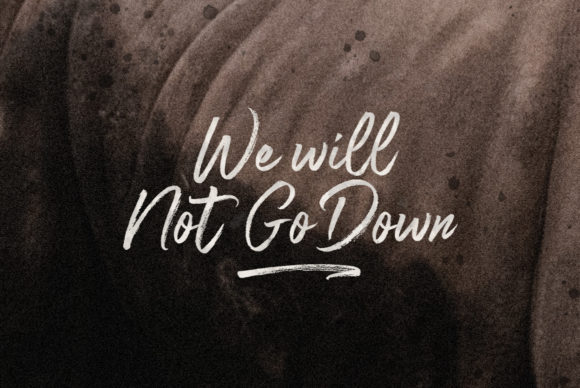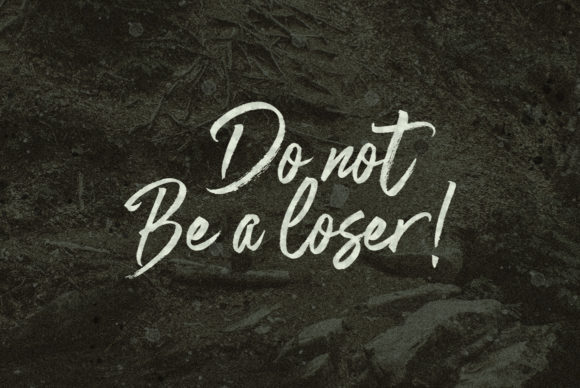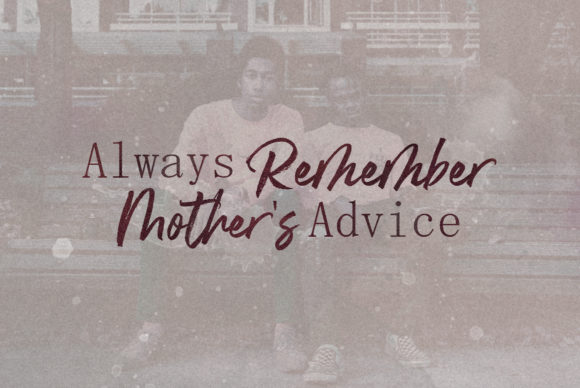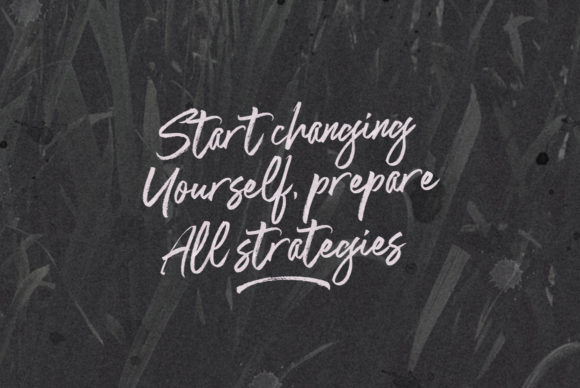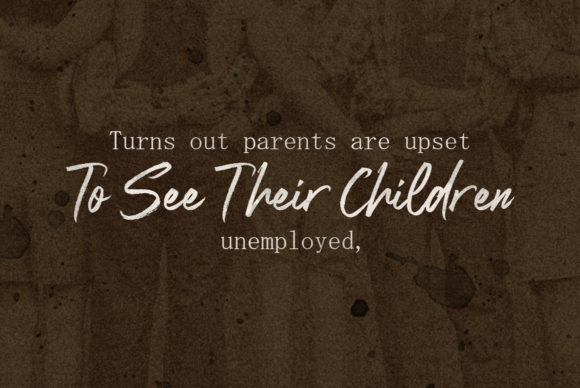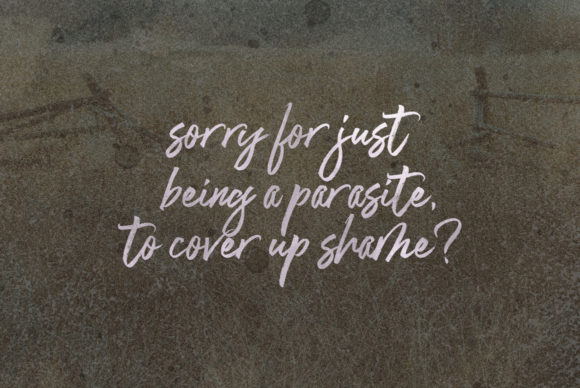
The Perfect Scratch: Unlocking the Power of the Bellastory Font
You know that moment when you’re working on a design and everything just falls into place? The colors, the layout, the typography – it’s like magic. For designers, that feeling is what makes all the late nights and early mornings worth it. And for us, it often starts with the right font. That’s where the Bellastory Font comes in – a striking brush font that captures the essence of hand-drawn elegance.
The Bellastory Font was intentionally crafted with a rough brush, giving it a unique, imperfect character that’s perfect for adding a touch of personality to your designs. With its amazing swashes, you can take your typography to the next level and make a lasting impression on your audience. Whether you’re a seasoned pro or just starting out, the Bellastory Font is a valuable addition to any designer’s toolkit.
- Unique Characteristics: Bellastory Font features a unique blend of modern and classic elements, with a touch of elegance and sophistication.
Bellastory Font Review
Overall, I found Bellastory to be a stylish and elegant font that’s perfect for projects where you want to convey a sense of sophistication and luxury. ✨ Its unique blend of modern and traditional elements makes it a great choice for a wide range of applications, from branding to editorial design.
- ✨ Elegant and sophisticated look: Bellastory is perfect for projects that require a touch of luxury and refinement.
- ✨ Versatile: It can be used for a wide range of applications, from branding to editorial design.
- ✨ Well-suited for long blocks of text: The font’s unique design makes it easy to read even in long blocks of text.
- ⚠️ Limited support for certain languages: Bellastory may not be the best choice for projects that require support for languages that use non-Latin scripts.
- ⚠️ May be too formal for some applications: While Bellastory is perfect for projects that require a touch of luxury, it may be too formal for projects that require a more casual tone.
Bellastory is a solid choice for designers who want to add a touch of sophistication and elegance to their projects. While it may have some limitations, its unique blend of modern and traditional elements makes it a great addition to any designer’s toolkit.
Getting the Most Out of Bellastory Font
To get the most out of Bellastory Font, use it for:
- Titles and headings: Bellastory Font is perfect for creating eye-catching titles and headings.
- Logos and branding: Use Bellastory Font to create unique and memorable logos.
- Typography-based designs: Bellastory Font is ideal for creating visually appealing typography-based designs.